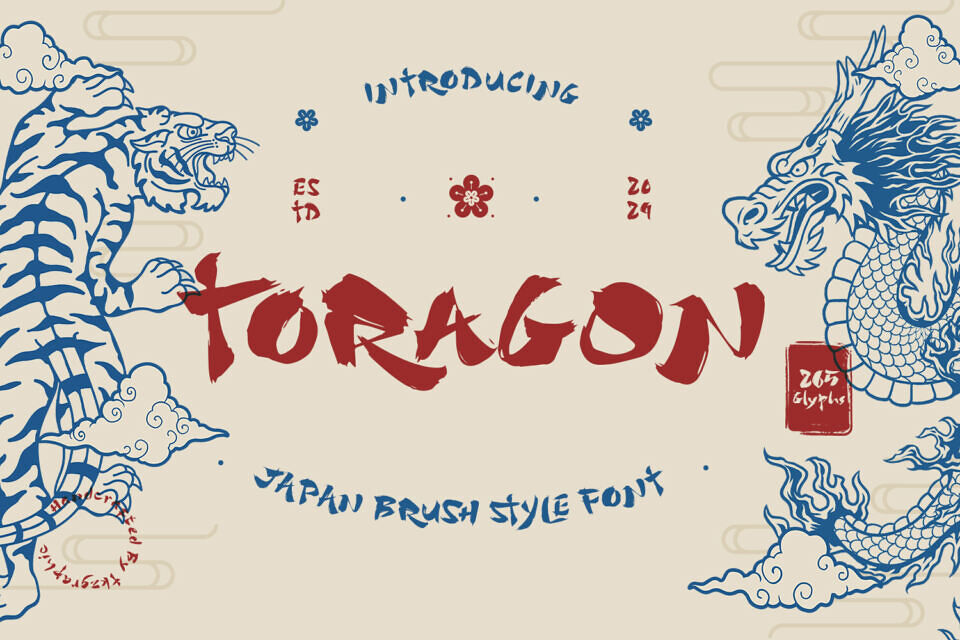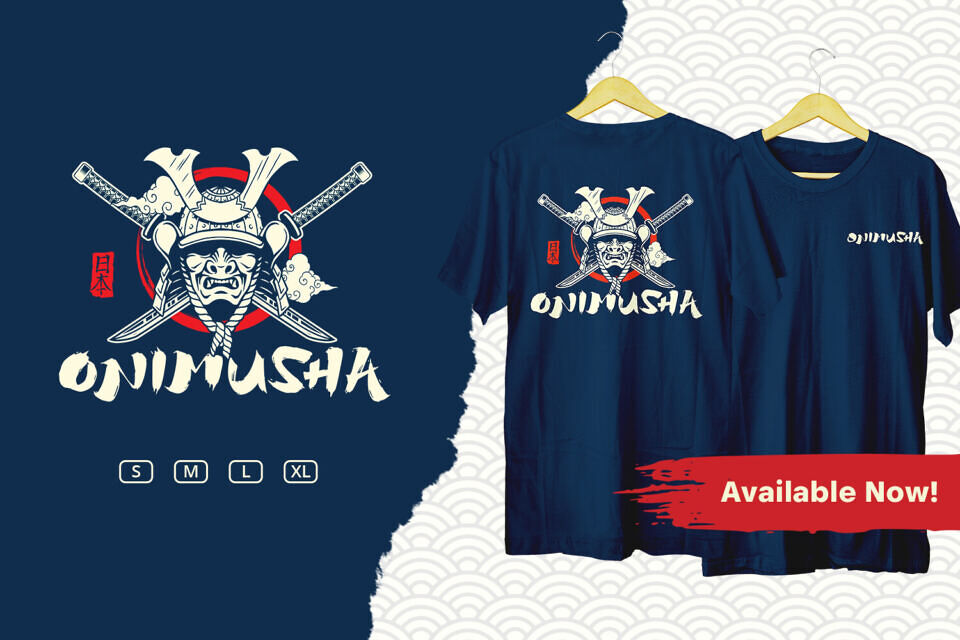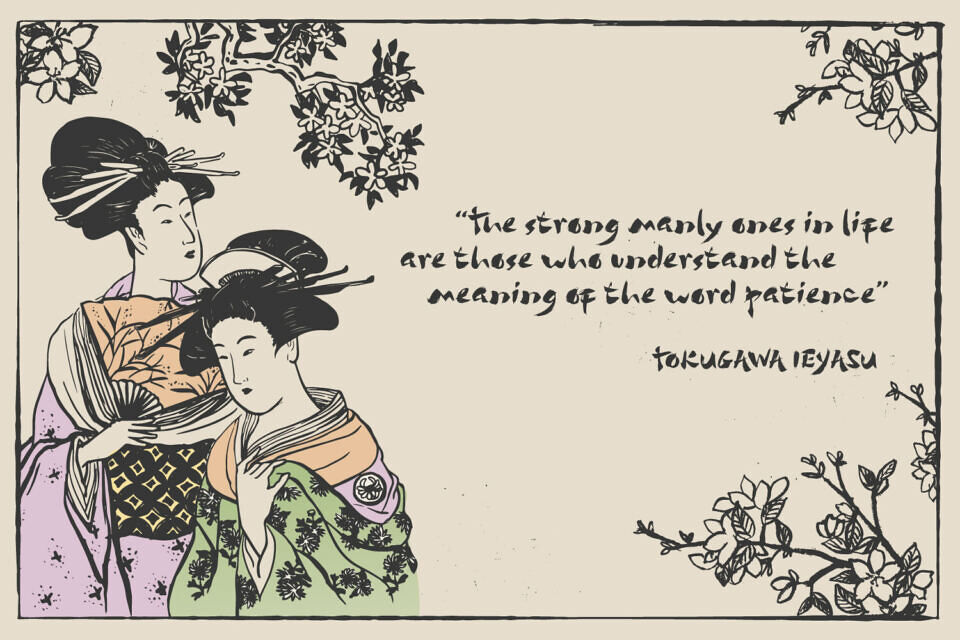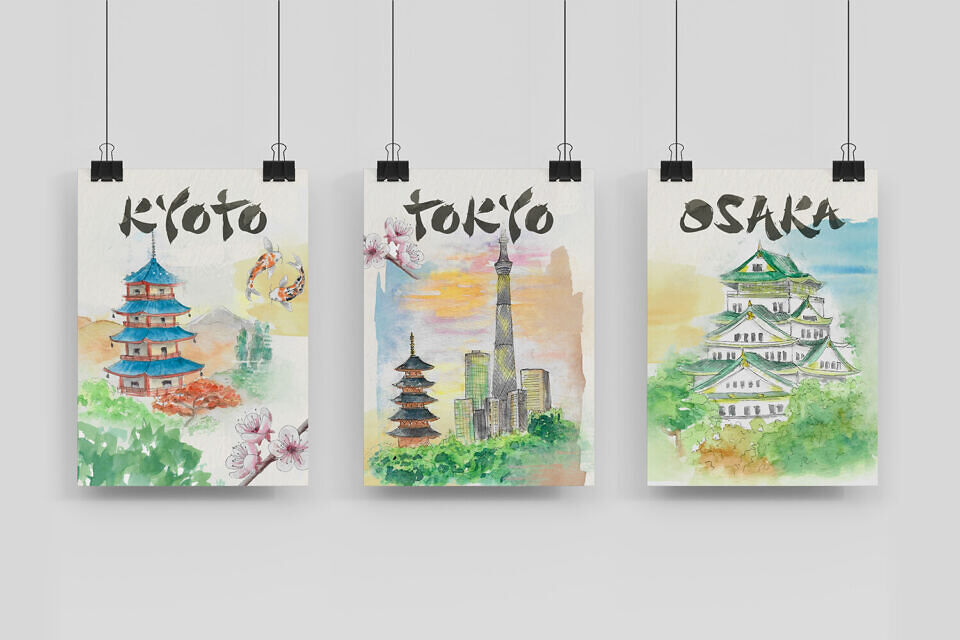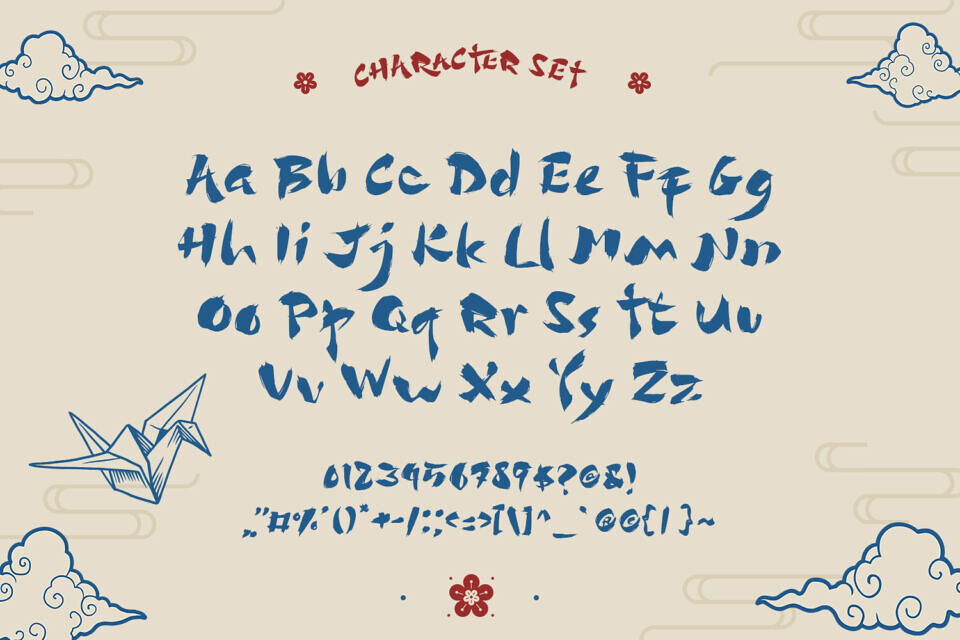
Toragon Font
Toragon is inspired by the Japanese words for Tiger (Tora) and Dragon, symbolizing a powerful blend of strength and courage.
This font is perfect not just for Japanese theme but any Asian theme of designs from Logo, movie titles, game titles, poster design, book design, branding materials, and all project design you can think of!
Designed by: Tkzgraphic